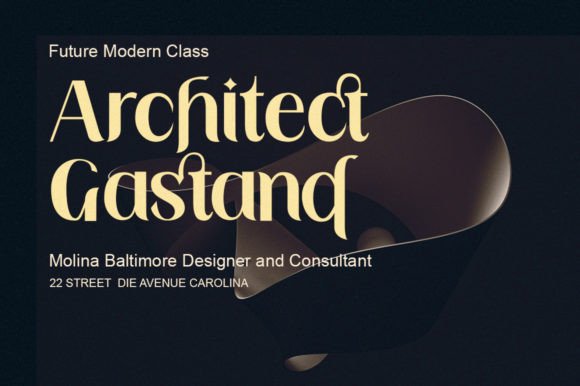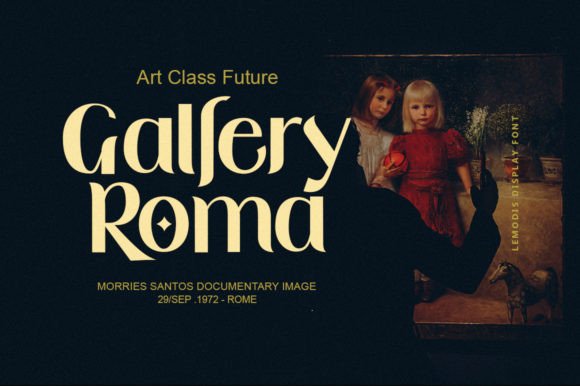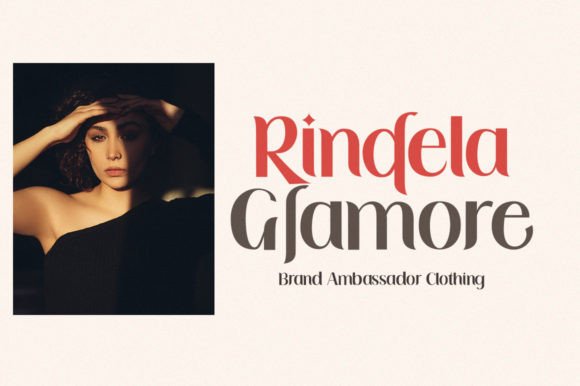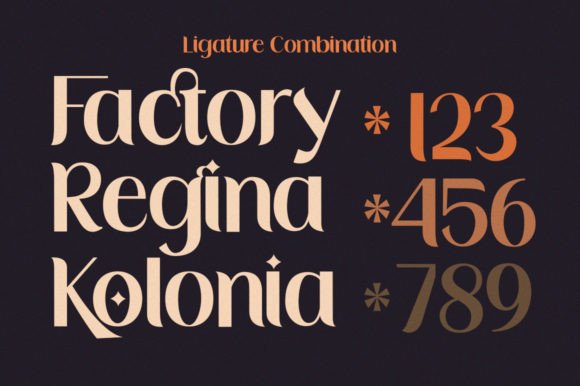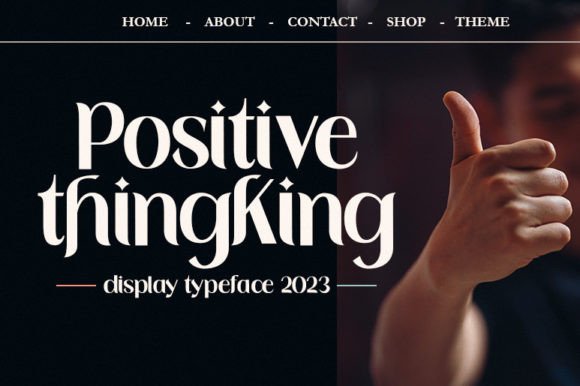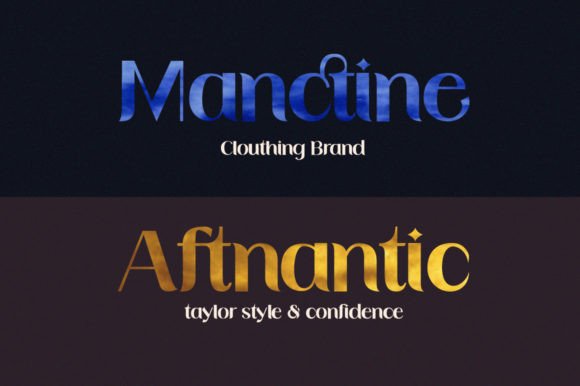
Introduction to Lemodis Font
Have you ever found yourself stuck in a creative rut, struggling to convey the perfect message through your design? It’s a feeling we’ve all been there, staring blankly at our screens, searching for that elusive spark that will bring our project to life. For designers, the right font can be the difference between a good design and a great one.
That’s where the Lemodis Font comes in – a cool and modern display font that’s poised to take your creative project to the next level. With its sleek lines and versatile design, this font has the potential to elevate any creation, whether it’s a bold headline or a subtle background element. And the best part? It’s a valuable addition to any designer’s library, offering a high-quality resource that’s sure to impress.
As a free download, the Lemodis Font is an essential design resource that’s perfect for anyone looking to add a touch of sophistication to their work. With its transparent background and modern aesthetic, this font is sure to be a game-changer for designers looking to make a lasting impression.
Key Features of Lemodis Font
- Includes 5 font styles with a total of 500 glyphs for extensive use in various designs
- Perfect for designers and artists looking for a unique, stylish font to elevate their creative project
Honest Review: Lemodis Font
I recently stumbled upon the Lemodis Font, a versatile design resource that caught my attention with its unique aesthetic. The font is perfect for any creative project, offering a wide range of styles and weights to suit various design needs. One of the standout features of the Lemodis Font is its ability to be used with a transparent background, making it ideal for logos and branding materials.
Here are some of the things that work well with the Lemodis Font:
- ✨ High-quality design: The font is well-crafted and visually appealing, making it a great addition to any design project.
- ✨ Versatile: The Lemodis Font comes in a range of styles and weights, making it easy to find the perfect fit for your creative project.
- ⚠️ Limited language support: The Lemodis Font may not support all languages, which could be a limitation for designers working on international projects.
- ⚠️ Not suitable for body text: Due to its decorative nature, the Lemodis Font is not ideal for use as body text.
Overall, the Lemodis Font is a great addition to any designer’s toolkit. While it may have some limitations, its unique aesthetic and versatility make it a valuable resource for any creative project.
Tips for Getting the Most Out of Lemodis Font
For the best results, use Lemodis Font in conjunction with a high-quality design resource. You can also experiment with different font sizes and styles to add visual interest to your design.
Lemodis Font is perfect for a wide range of creative projects, including social media graphics, presentations, logos, and branding materials. You can also use it to create free downloadable resources, such as printable art and templates.
Can I use Lemodis Font with a transparent background?
Yes, Lemodis Font supports transparent backgrounds, making it a great choice for designs that require a subtle and elegant look. You can use the font with a transparent background in your design software or create a design element with a transparent background using the font.